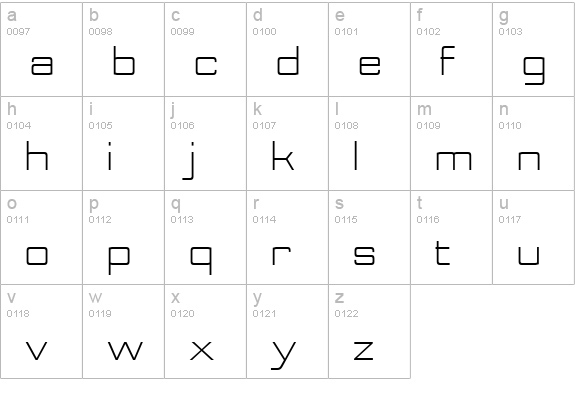
NesobriteSeBk-Regular Font Details
NesobriteSeBk-Regular is the standard, neutral variant in the NesobriteSeBk typeface family \xE2\x80\x94 well suited to general body text, paragraphs, and standard typographic work.
NesobriteSeBk-Regular font is a versatile and modern typeface that exudes elegance and sophistication. With its clean lines and sleek design, this font is perfect for a wide range of design projects, from branding to web design. The font features a balanced blend of sharp angles and soft curves, creating a harmonious and eye-catching aesthetic. What sets NesobriteSeBk-Regular font apart is not only its visual appeal but also its versatility. Whether you're working on a professional presentation or a creative project, this font will elevate your work and give it a polished and refined look. Its readability and clarity make it suitable for a variety of applications, ensuring that your message is delivered effectively. Best of all, NesobriteSeBk-Regular font is available for free download at FontsMarket.com. This means that you can access this high-quality font without any cost, making it a valuable addition to your font library. Don't miss out on the opportunity to enhance your designs with the timeless style of NesobriteSeBk-Regular font - download it today and unleash your creativity!